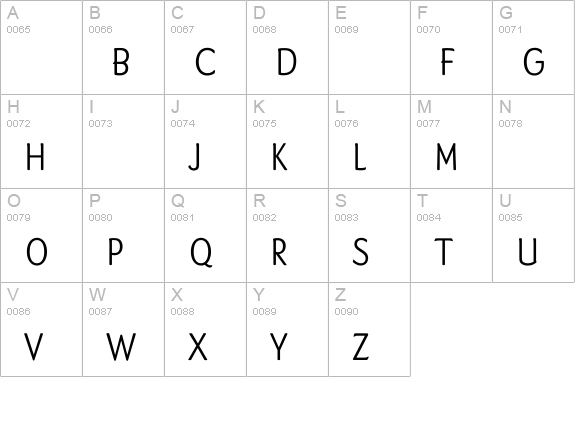
DundeeLightCond Font Details
DundeeLightCond is a sleek and modern font that exudes elegance and sophistication. Its condensed style makes it perfect for creating a clean and polished look in any design project. The slim letterforms and subtle curves give DundeeLightCond a refined and stylish appearance that is sure to catch the eye. What's even better is that DundeeLightCond is available for free download at FontsMarket.com. This means you can easily add this stunning font to your collection without any cost. Whether you're working on a branding project, a website design, or any other creative endeavor, DundeeLightCond will elevate your work with its timeless charm and versatility. Download it now and see how this font can enhance your designs with its effortless sophistication.